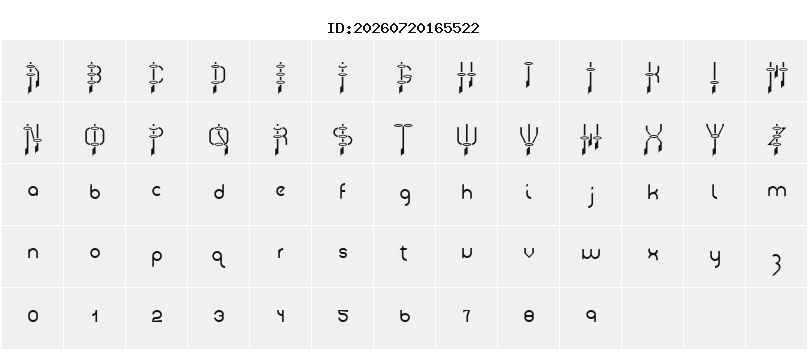
About Frazzed.ttf
Frazzed.ttf is a modern, elegant sans-serif font designed for ultimate readability and visual harmony. Perfect for branding, headlines, web design, and print materials.